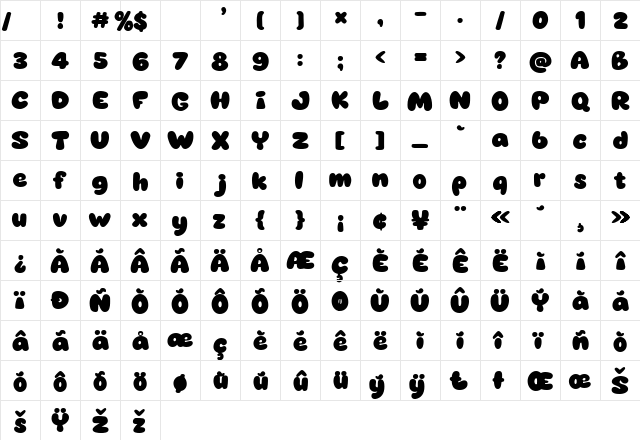
Complete Coco Chamel Regular glyph index. Displaying only characters natively supported by Coco Chamel Regular font.
Coco Chamel is a composed and adaptable typeface that performs quietly and consistently across a wide range of design contexts.